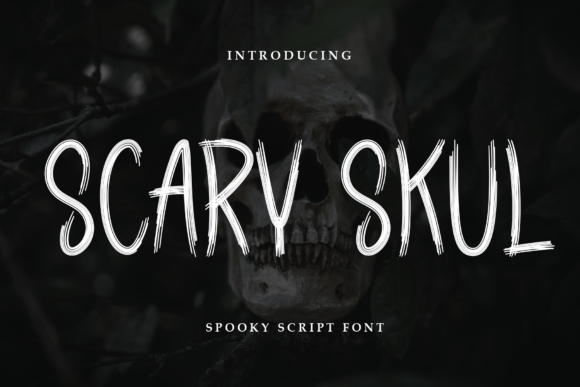
Introducing Scary Skul Font, the ultimate choice for adding a whimsical and charming touch to your wedding signs and invitations! Created by the talented Strongkeng Old, this sweet and friendly handwritten display font is here to make your special day even more memorable.
With its adorable and playful design, Scary Skul Font brings a delightful twist to any project. Whether you're crafting wedding invitations, designing cards, or creating personalized signs, this font is guaranteed to leave a lasting impression on your guests.
Picture this: Your guests receive an enchanting invitation in Scary Skul Font, instantly setting the tone for a whimsical and fun-filled celebration. The unique script style of this font adds a touch of elegance while maintaining a lighthearted and friendly vibe, making it perfect for both formal and casual wedding themes.
Scary Skul Font is more than just a font; it's a key ingredient in creating an unforgettable wedding experience. Its captivating strokes and intricate details evoke a sense of joy and excitement that will resonate with your guests. Imagine their delight as they read their names beautifully crafted in this charming font, feeling the warmth and love you've poured into every aspect of your wedding preparations.
But why stop at invitations? Let your creativity run wild with Scary Skul Font as you design stunning wedding cards, thank you notes, and even personalized signage for your big day. Its versatility allows you to effortlessly incorporate it into various design elements, ensuring a consistent and captivating theme throughout your wedding journey.
Scary Skul Font is more than just visually appealing; it also carries an emotional undertone. It instills a sense of nostalgia and innocence, reminding us of simpler times and carefree moments. By using this font, you're not only creating beautiful designs but also invoking a genuine emotional connection with your loved ones.
In addition to its aesthetic charm, Scary Skul Font is also incredibly easy to use. Its user-friendly nature ensures that even those with minimal design experience can effortlessly incorporate it into their projects. Say goodbye to hours of struggling with complicated font settings and hello to a smooth and enjoyable design process.
So, if you're searching for the perfect font to elevate your wedding invitations, cards, and signage, look no further than Scary Skul Font. Let its sweet and friendly nature infuse joy and excitement into your special day, leaving a lasting impression on your guests. Download it now and let your creativity soar!